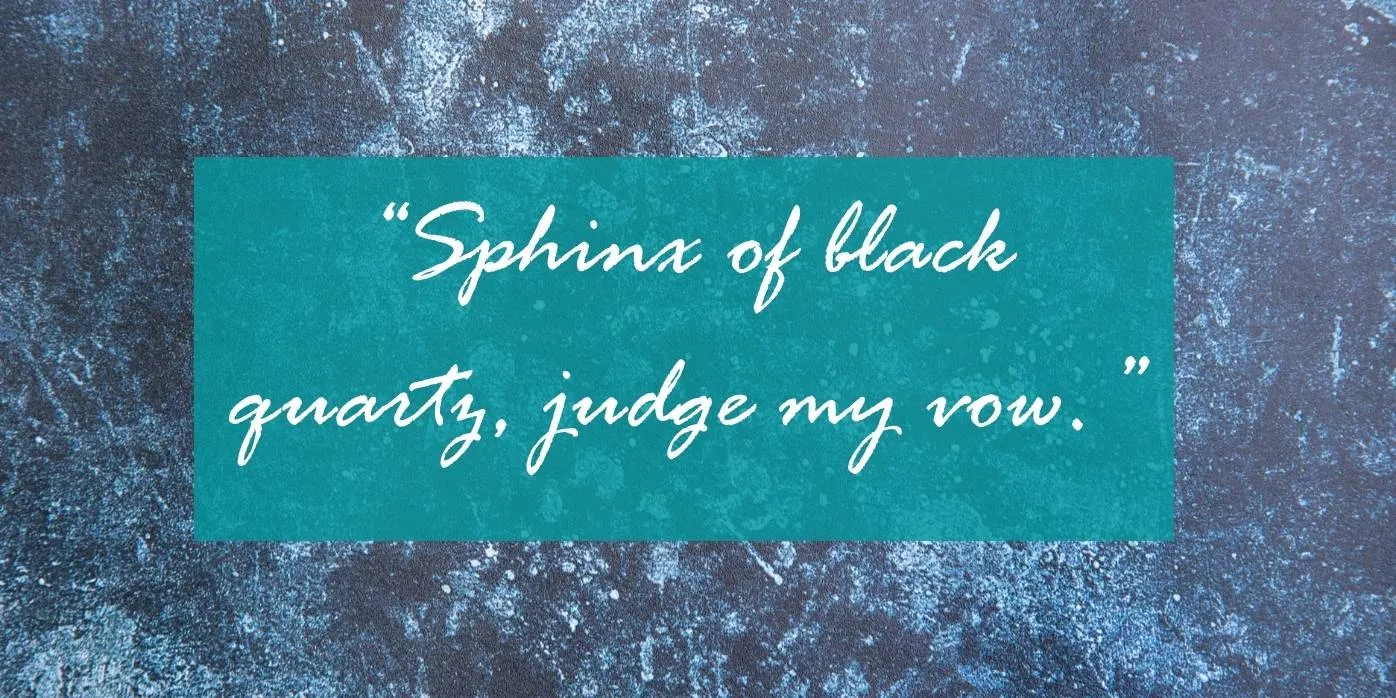
Rage Font
Rage Font was designed by Ron Zwingelberg. This cozy typeface belongs to the Script font family. This stylish Font is a casual typeface that comes with an OpenType font format. This awesome Font has a very unique design and it is perfect for various designs.
Its copy and paste are useful for different programs. This stunning typeface comes in two special styles, Regular and Inline. Each style has its own set of unique characters that are sure to make your designs pop. The Regular style is perfect for more formal designs, while the Inline style is perfect for more creative and fun designs.